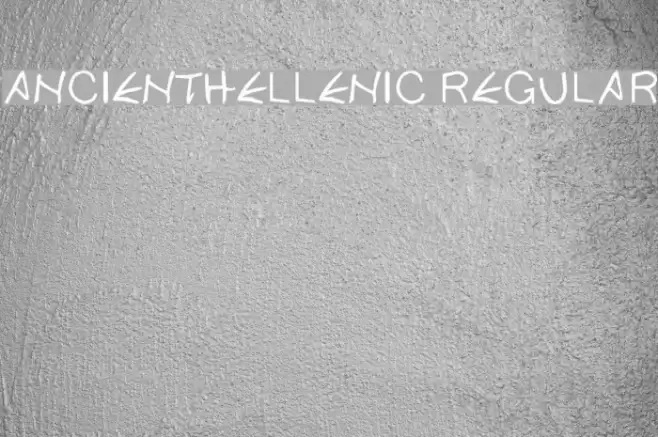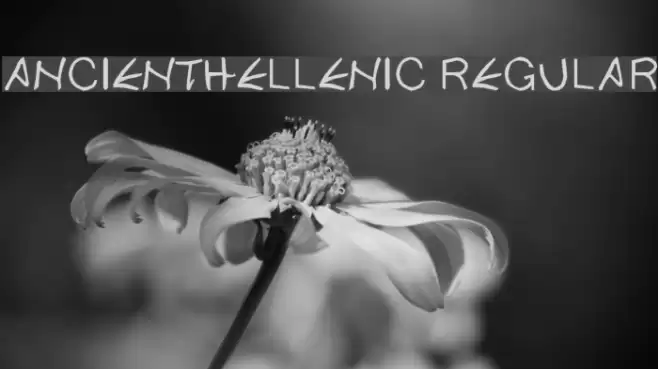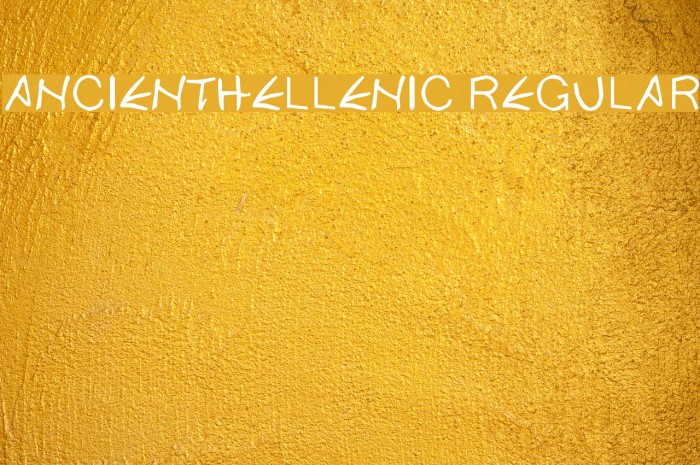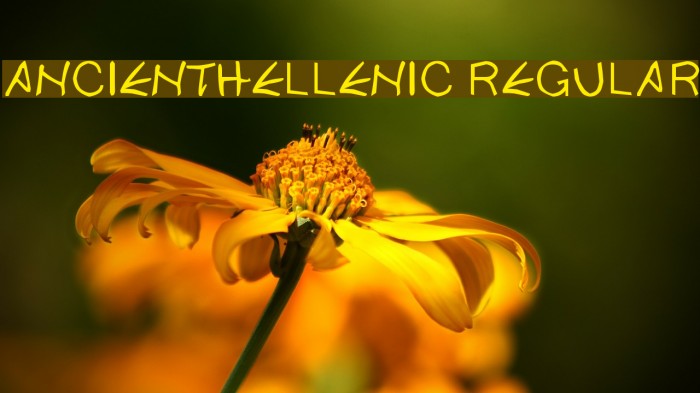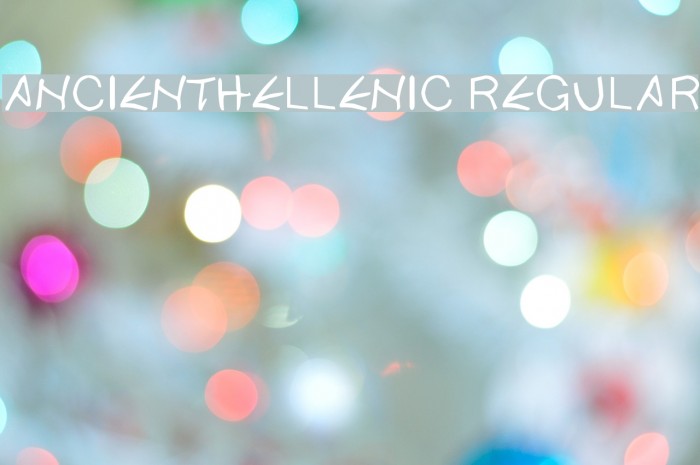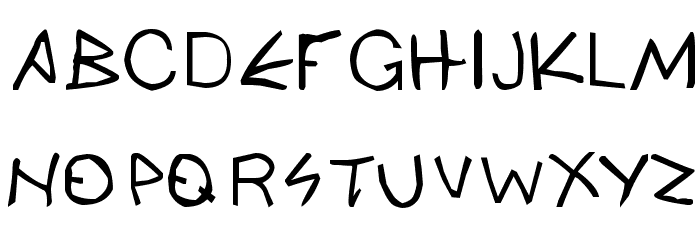
ancientHellenic Regular Font
ancientHellenic Regular Description
This font features a distinctive style reminiscent of ancient Greek inscriptions, characterized by angular and geometric letterforms. The uppercase letters exhibit a unique blend of sharp edges and curves, creating a sense of historical authenticity. The lowercase letters maintain a consistent design with the uppercase, ensuring readability while preserving the ancient aesthetic. The numerals are bold and clear, complementing the overall style. Special characters are crafted with attention to detail, enhancing the font's versatility. This font is ideal for projects that require a touch of classical elegance and historical depth.
A font inspired by ancient Greek inscriptions with angular, geometric letterforms from Uncategorized fonts.
- Proposed Projects: Ideal for historical documentaries, museum exhibits, educational materials, and themed event invitations.
- Overall Style: Vintage